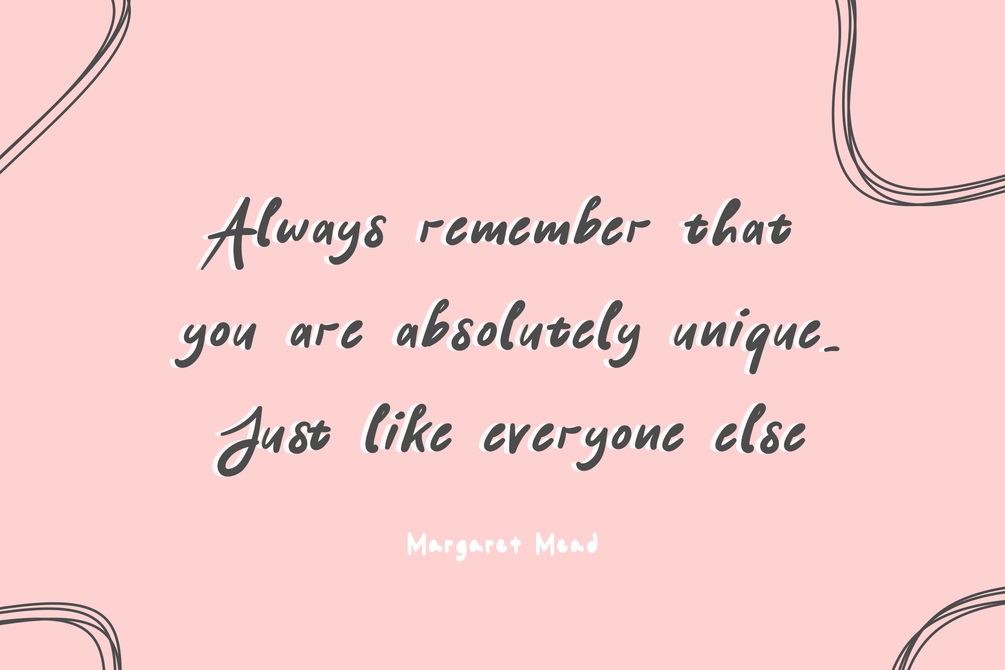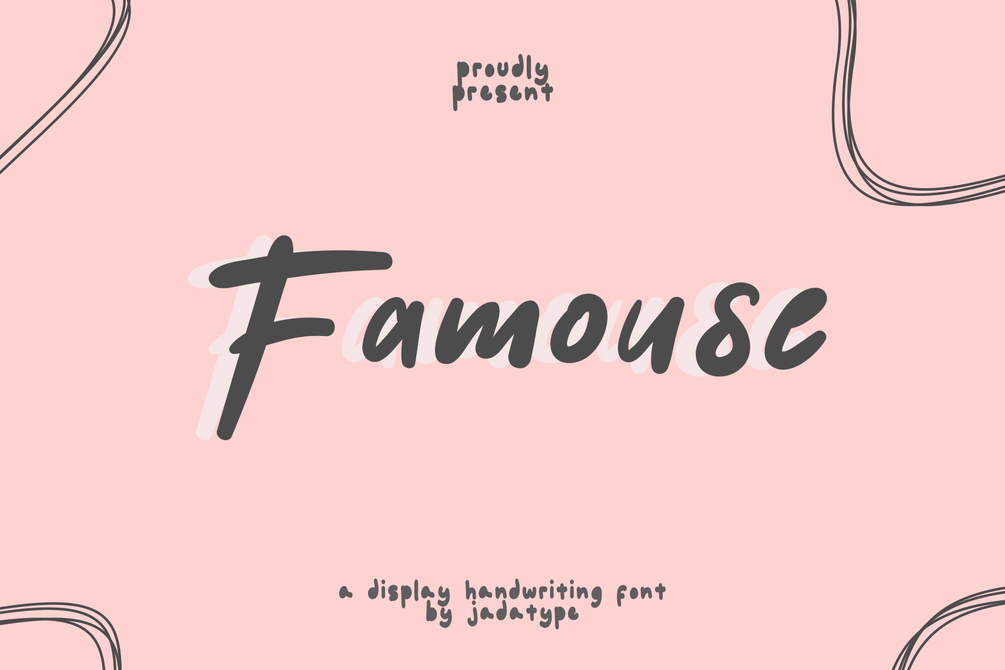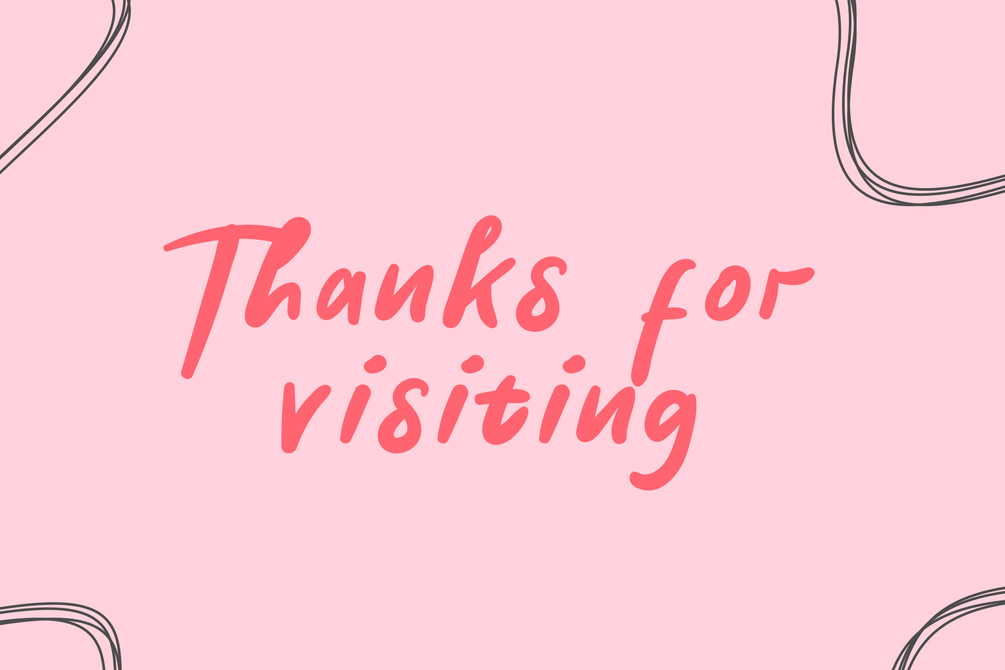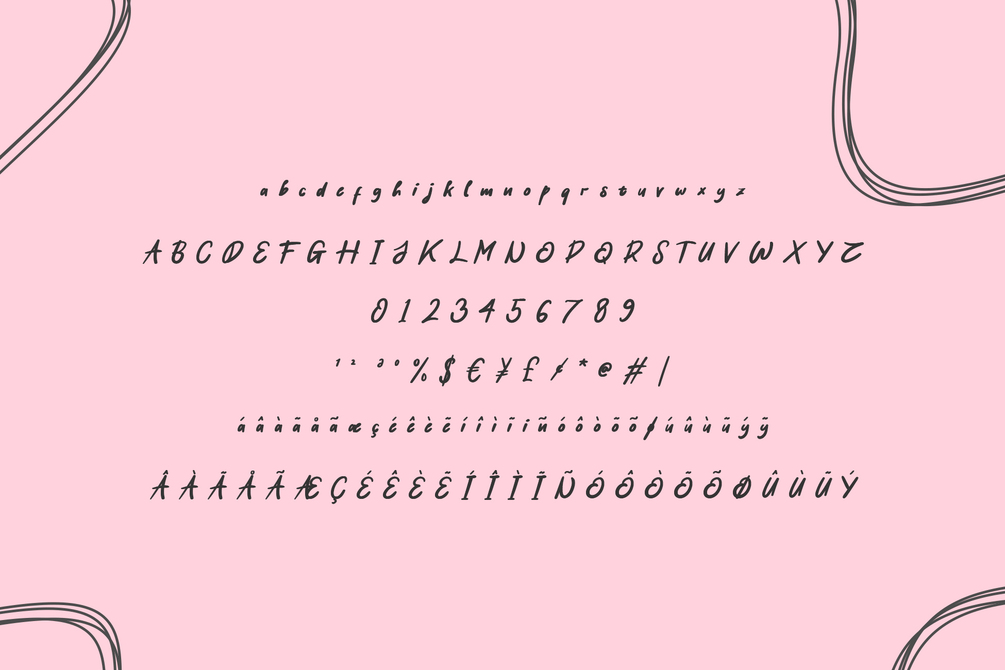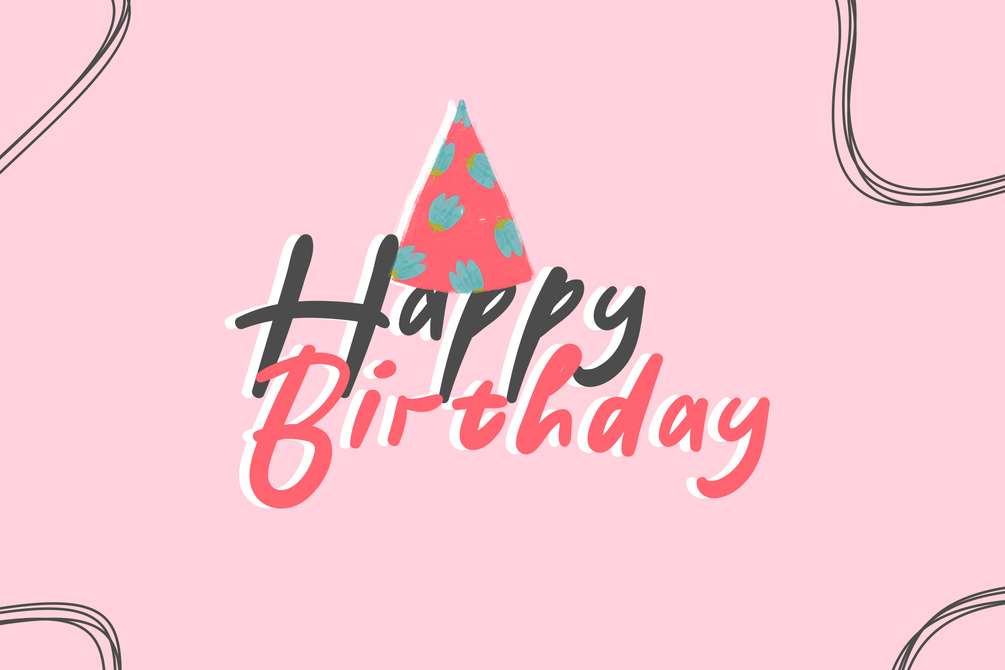
Famouse Font
Famouse is a handwriting font with a playful style. suitable for social media, branding, craft, products, handwritten, and so on. contains standard English letters, numbers, punctuation, and several accents that support multilingualism.